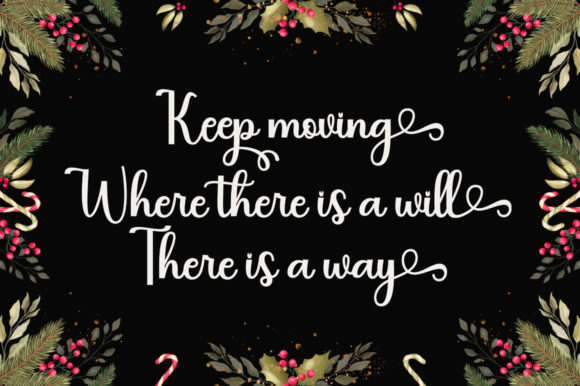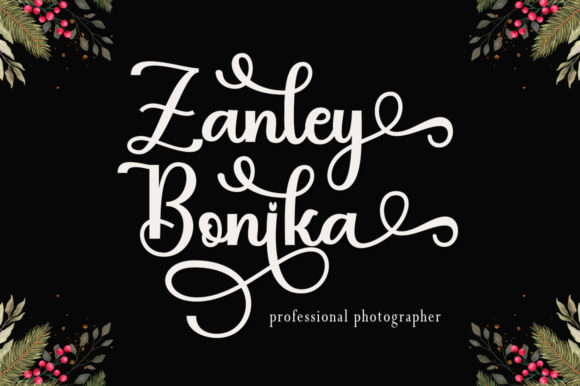
Butter Smile Font
db-ku.com - Script & Handwritten -- Butter Smile is a lovely script font featuring charming, playful characters that seem to dance along the baseline. This font is PUA encoded which means you can access all of the glyphs and swashes with ease!